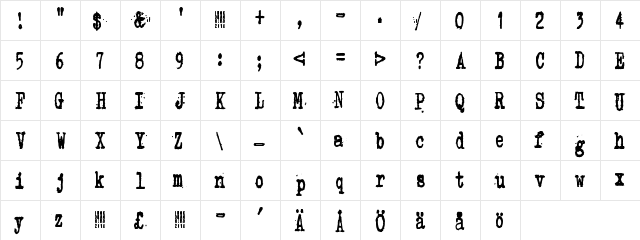
Zombie Queen 2 Regular
Design Context for Zombie Queen 2 Typeface
Zombie Queen 2 takes a measured approach to typography — its balanced proportions and neutral character make it a reliable workhorse for both digital and print work.